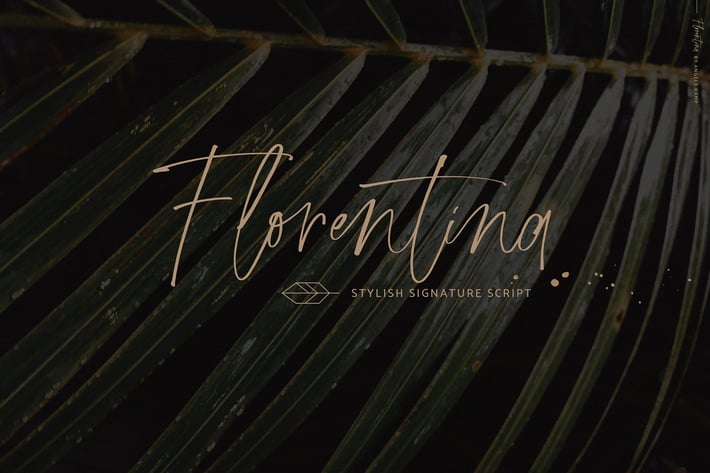
Florentina font signature script
Florentina is a stylish signature script that will give instant flair to your designs. This lovely script includes 48 ligatures letter combos that give you that gorgeous hand-lettered look. It also includes 27 alternate characters if you want to switch it up.